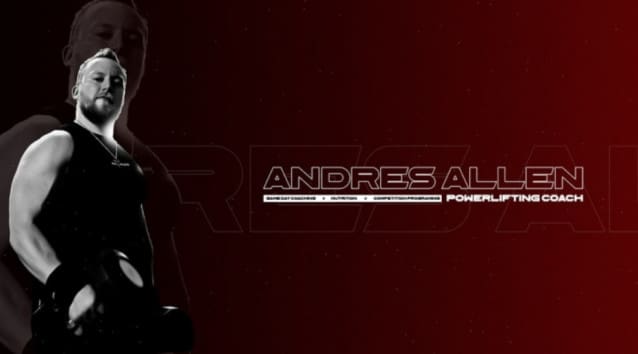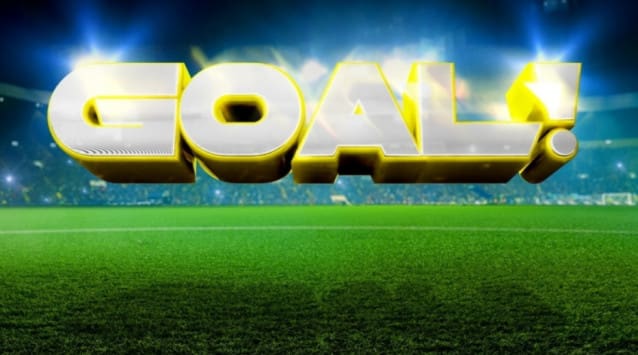
Jumbotron Font
Jumbotron Font is a bold display font designed with intention to be used and seen on the big screen. Titles often in sports need to be legible but also have a creative edge. This is where Jumbotron fits those needs, so you don’t have to.